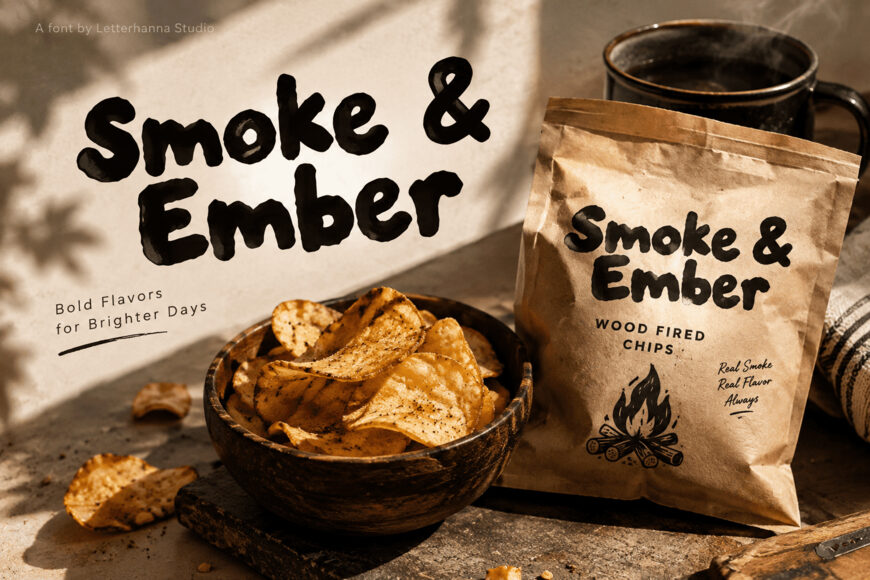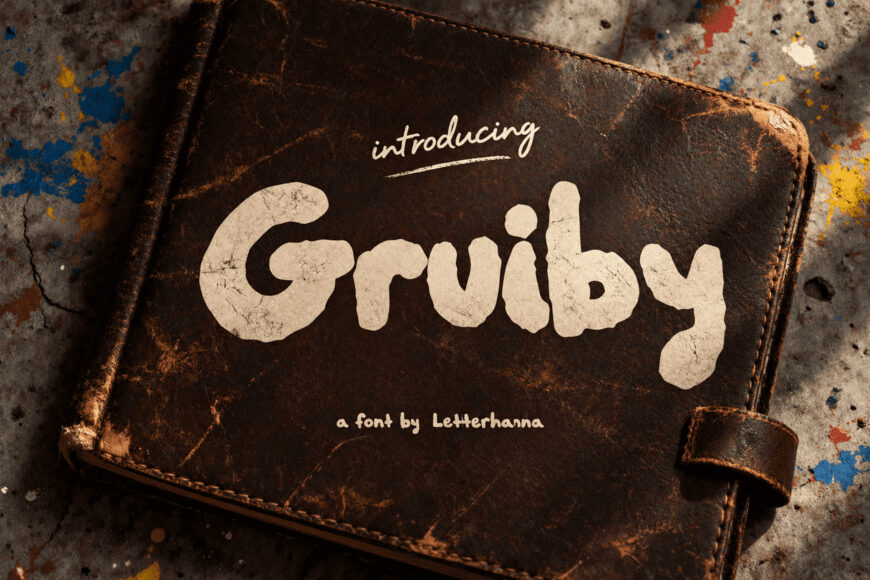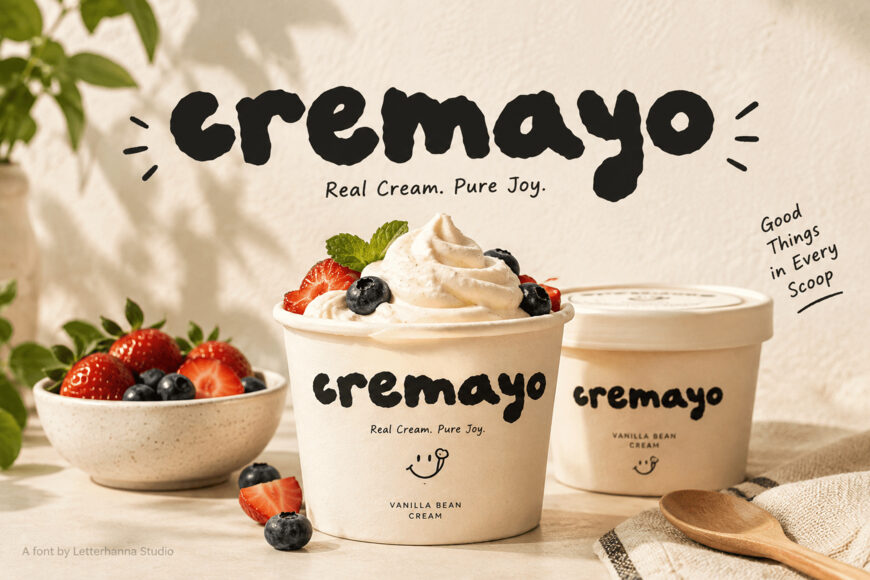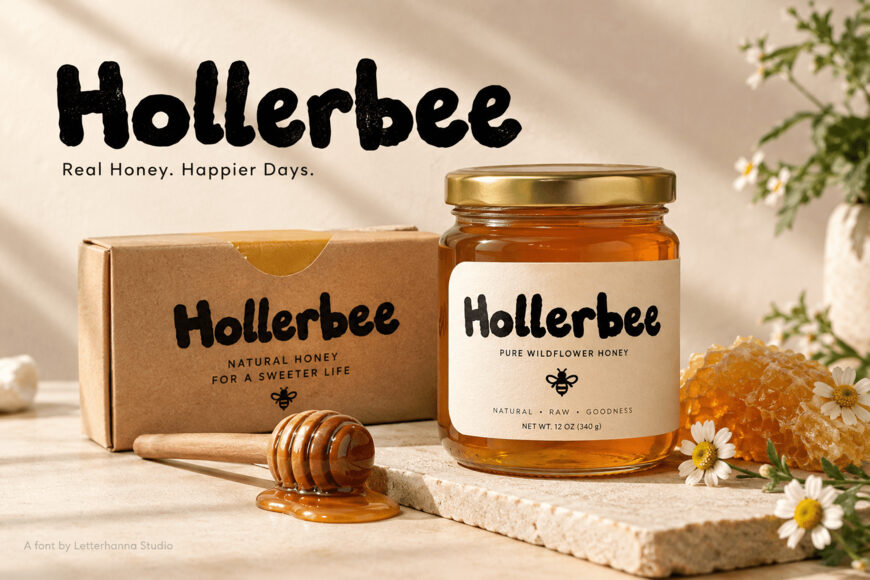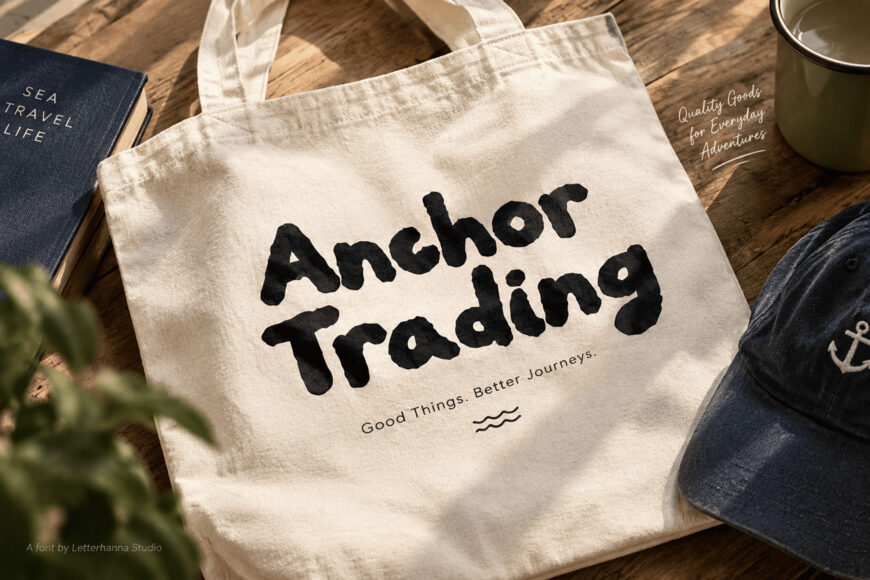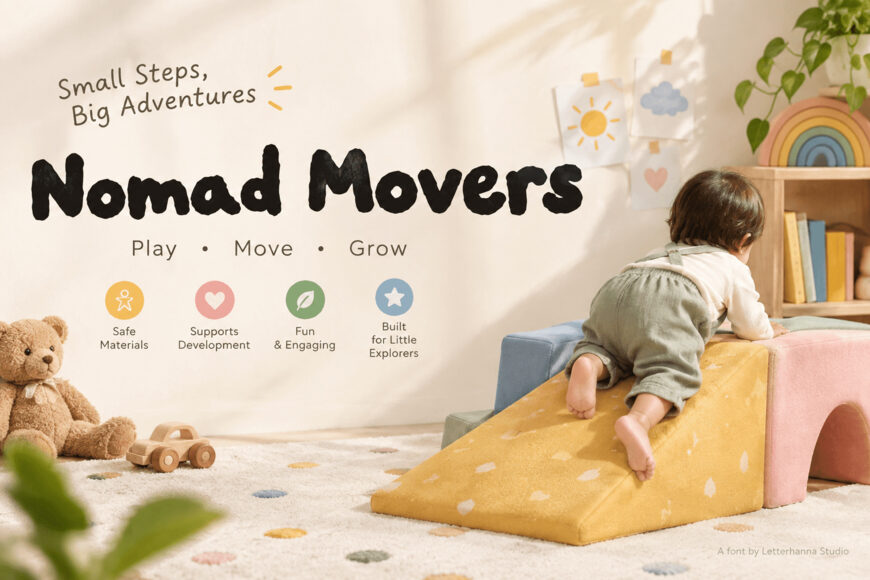
Gruiby Font
Meet Gruiby, a handwritten display font with a genuinely human feel. Its thick, rounded letters look hand-painted rather than digitally perfect, with subtle imperfections that add warmth, character, and authenticity.
Perfect for coffee packaging, bakery labels, honey jars, children’s brands, tote bags, and attention-grabbing social media headlines, Gruiby brings instant charm wherever it appears. Typography shapes a customer’s first impression in seconds. Gruiby makes that moment memorable—helping your brand stand out, stay remembered, and inspire repeat customers.